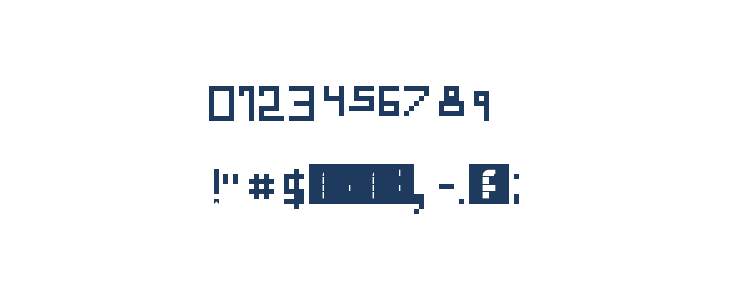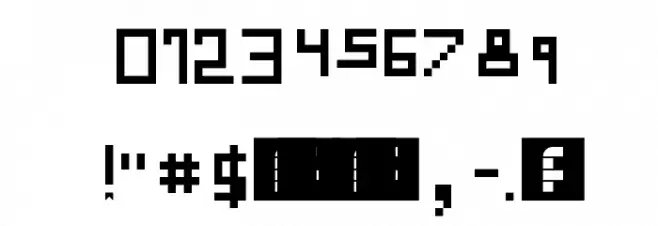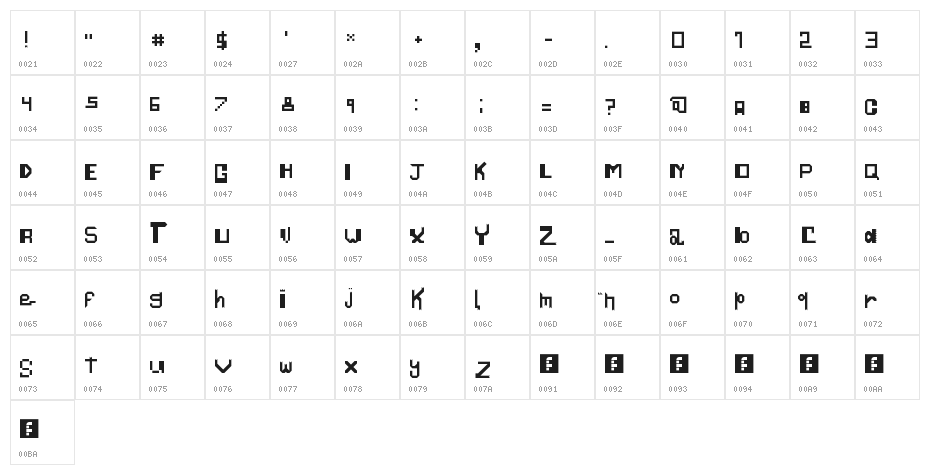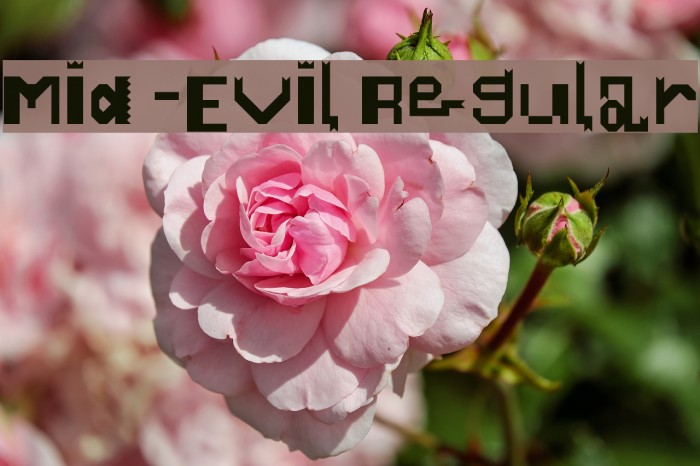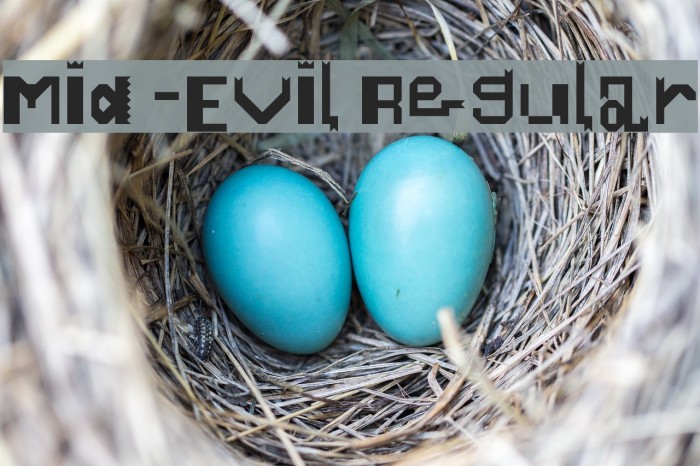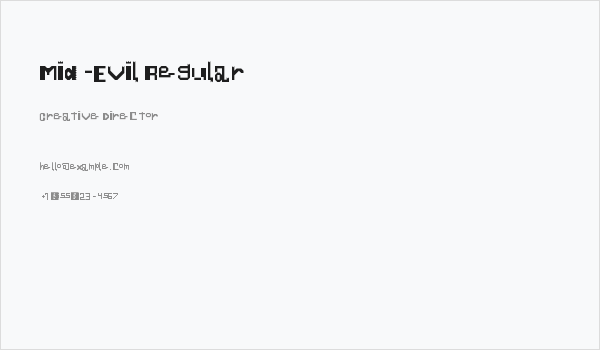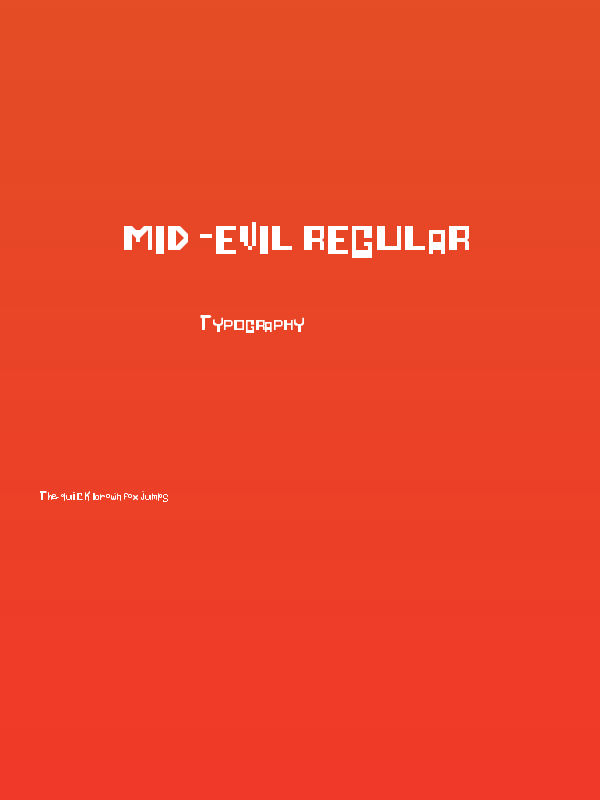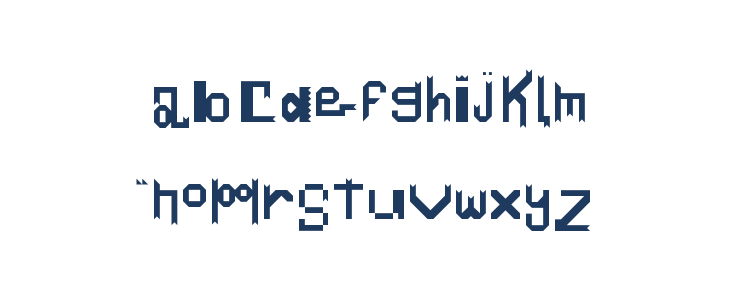
Mid-Evil Regular Font
Mid-Evil Regular Description
This font features a bold, angular design reminiscent of medieval or gothic styles, with sharp edges and a blocky appearance. The uppercase letters are particularly striking, with a strong geometric form that gives them a commanding presence. The lowercase letters maintain the same angular aesthetic, ensuring consistency throughout the typeface. Numbers and special characters are designed to match the overall theme, providing a cohesive look. The font's unique style makes it suitable for projects that require a dramatic and historical feel, such as fantasy-themed designs or period pieces.
| Overall Style | Gothic, Medieval, Decorative |
| Proposed Projects | Ideal for fantasy-themed designs, historical projects, or any creative work requiring a dramatic, medieval touch. |